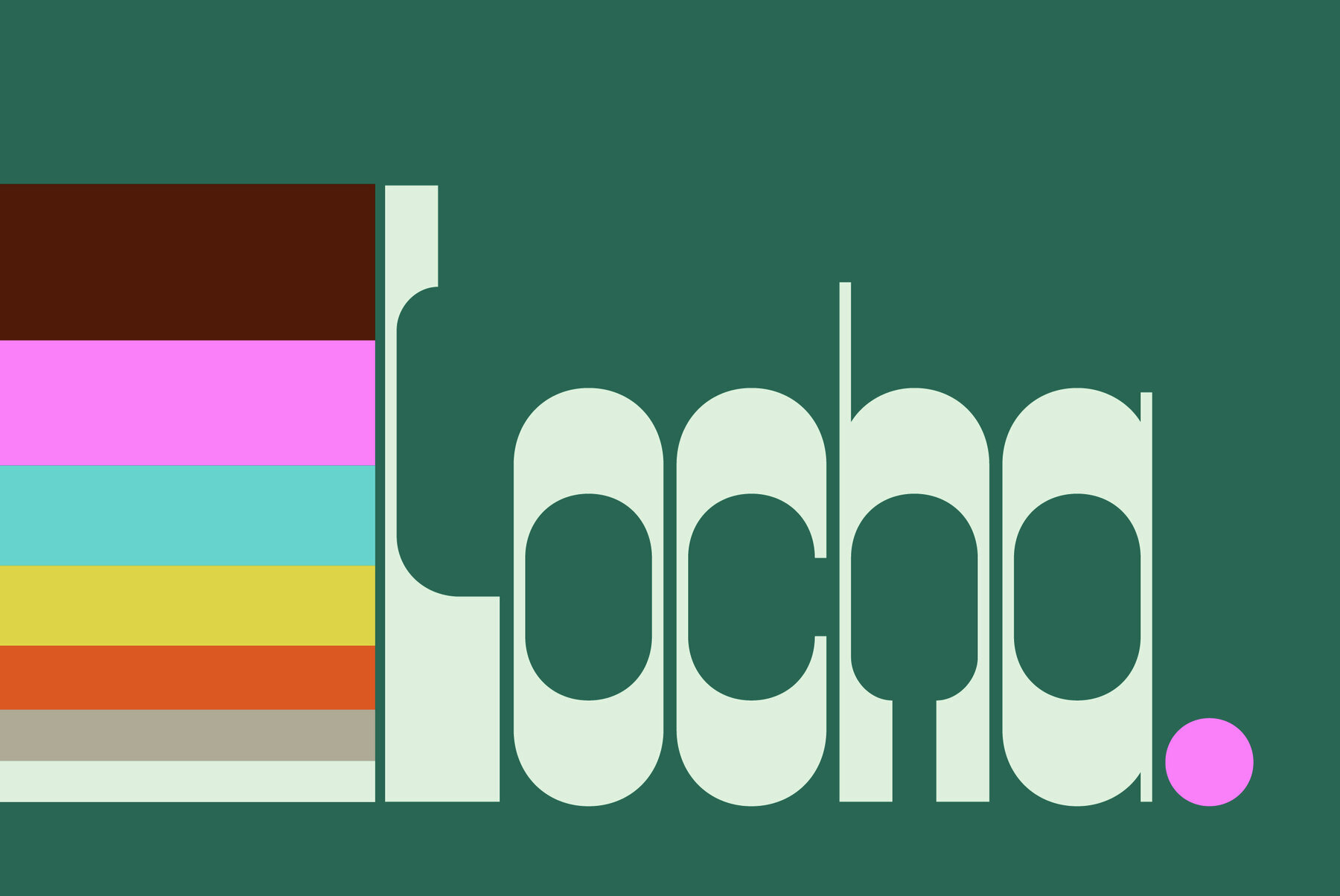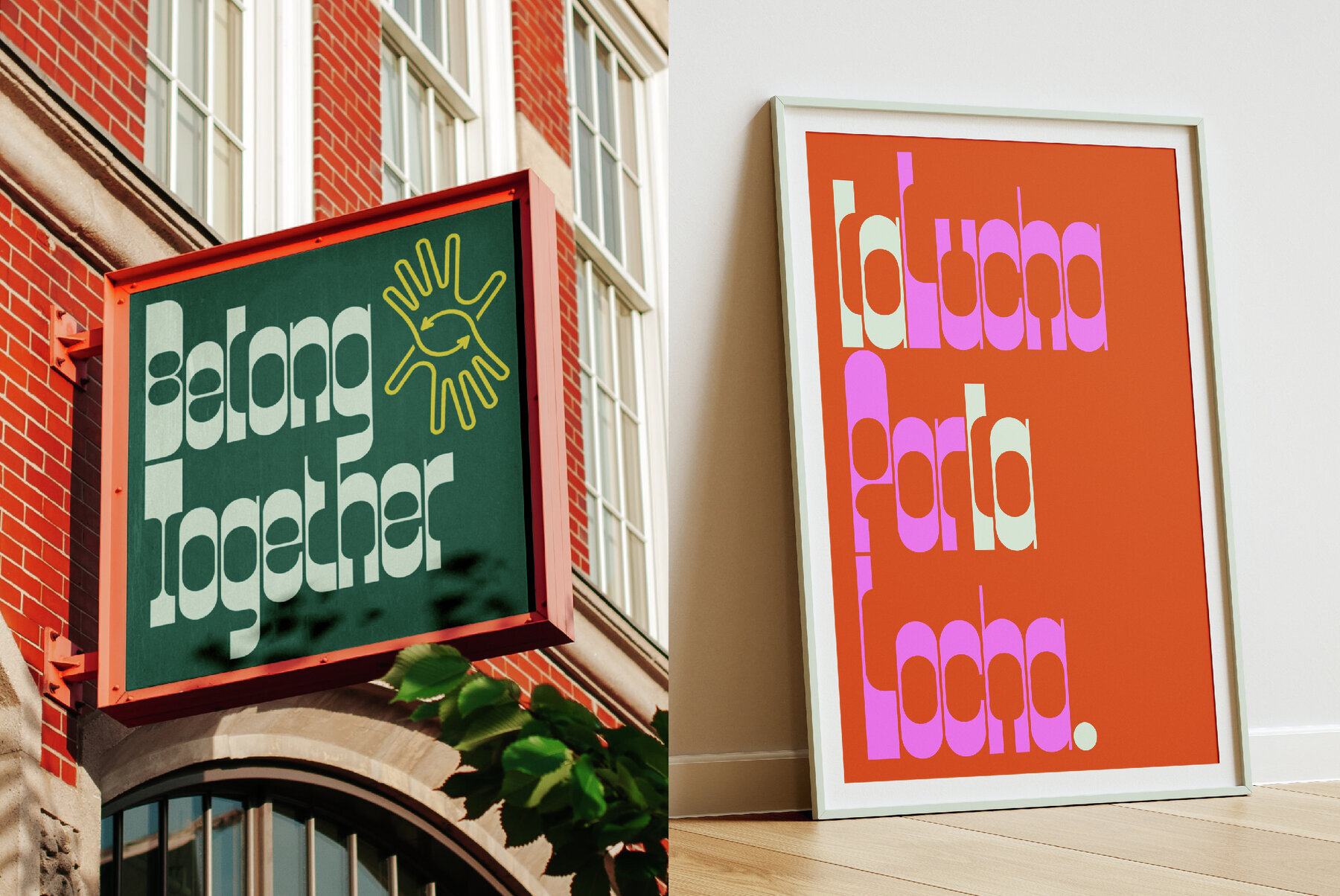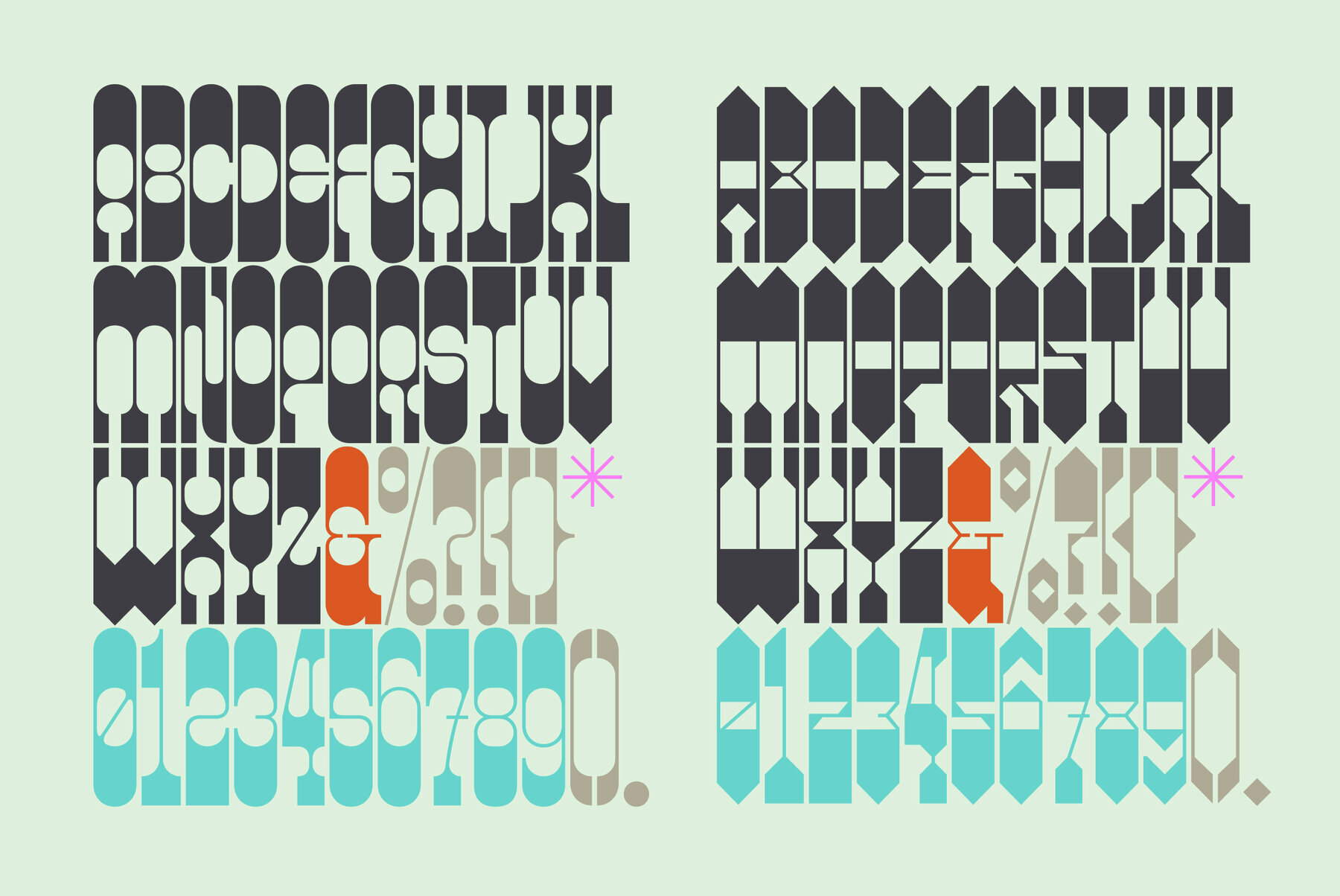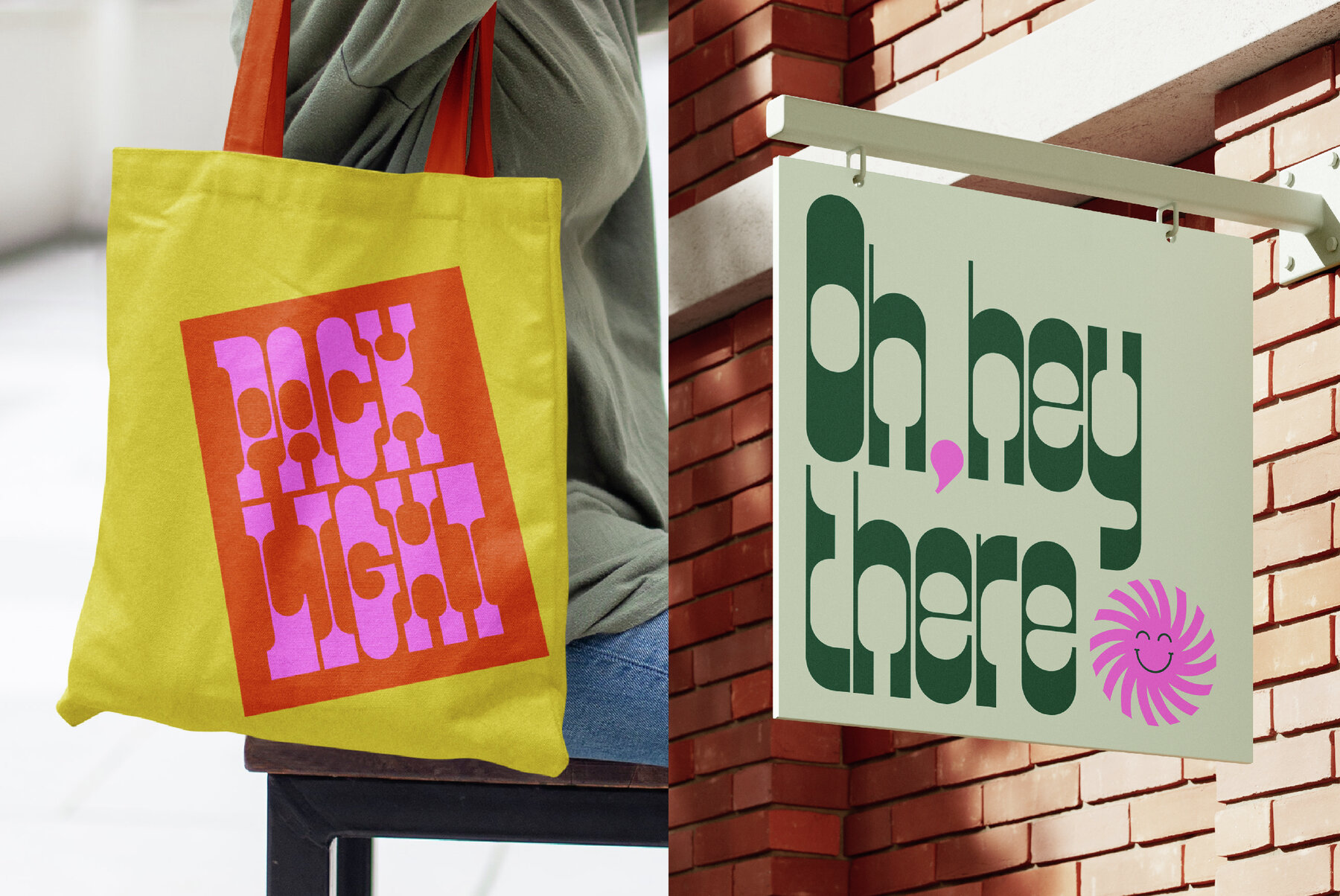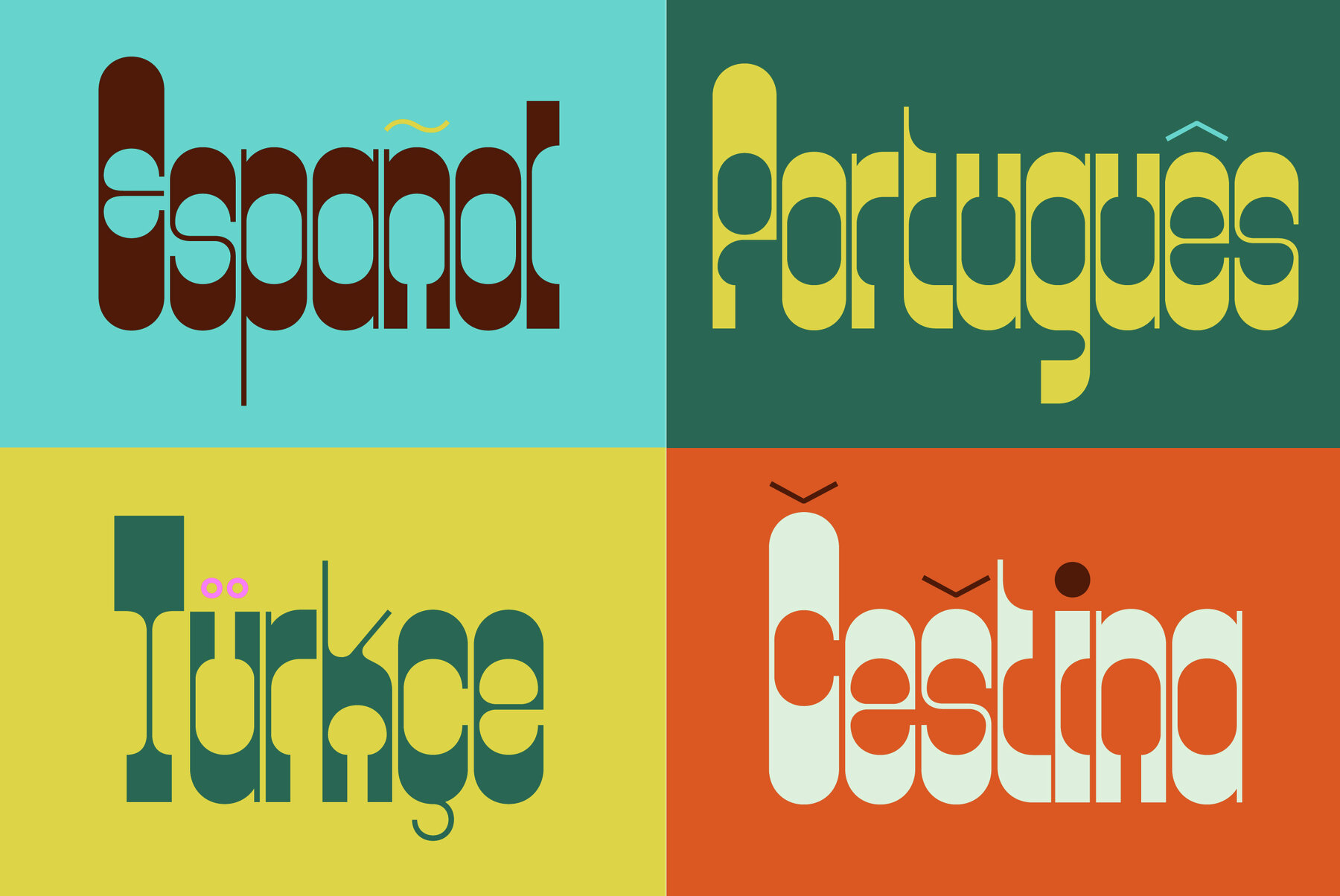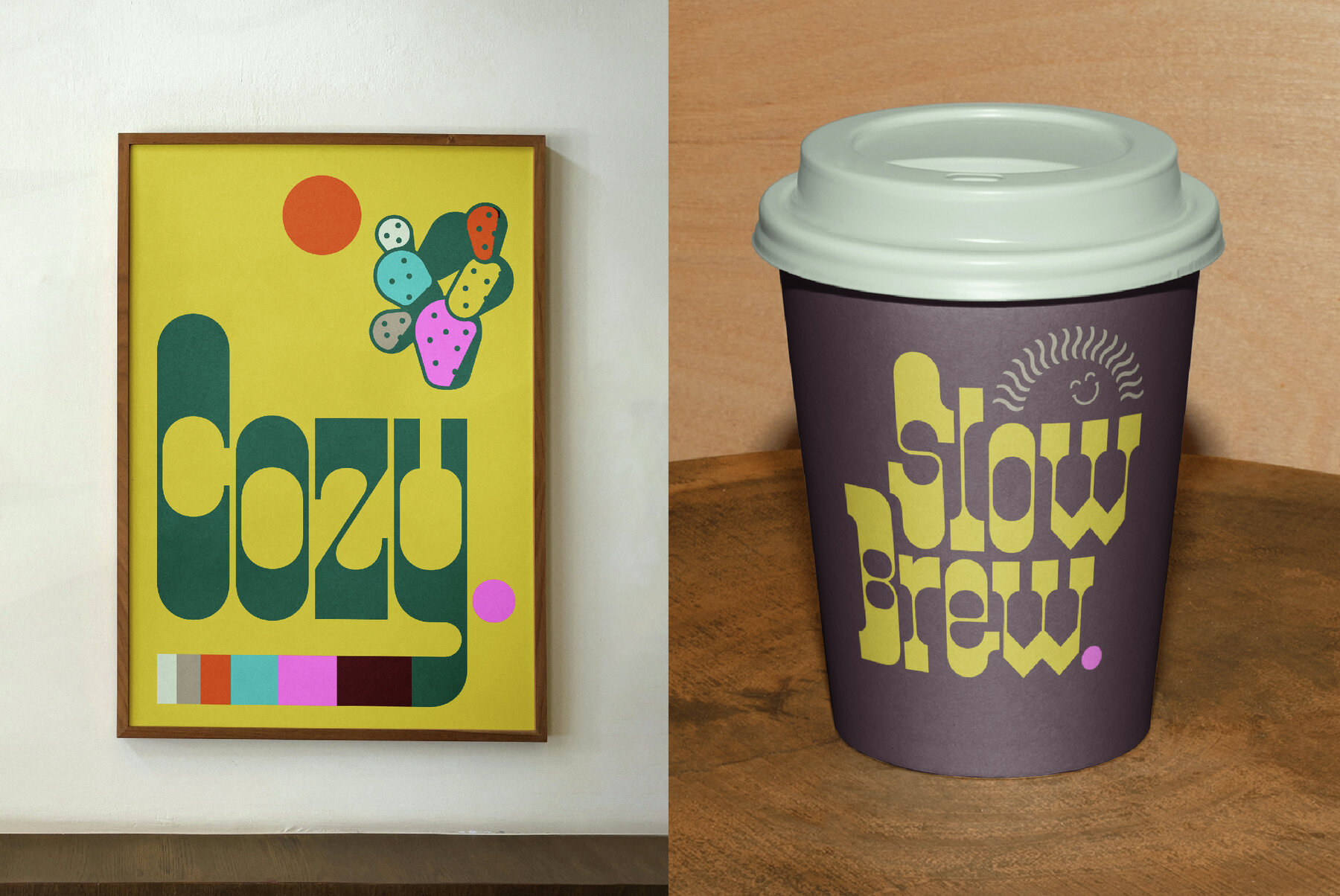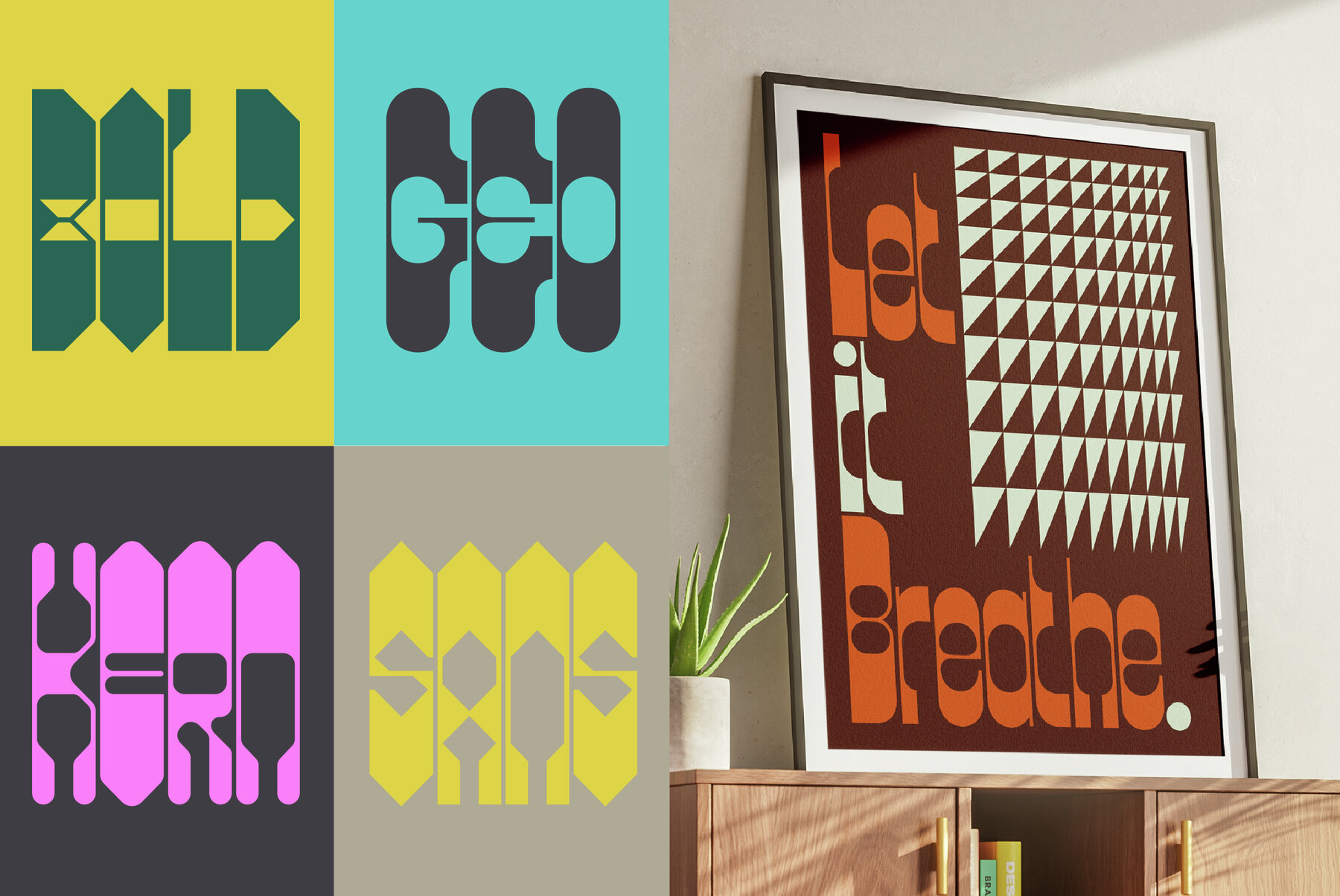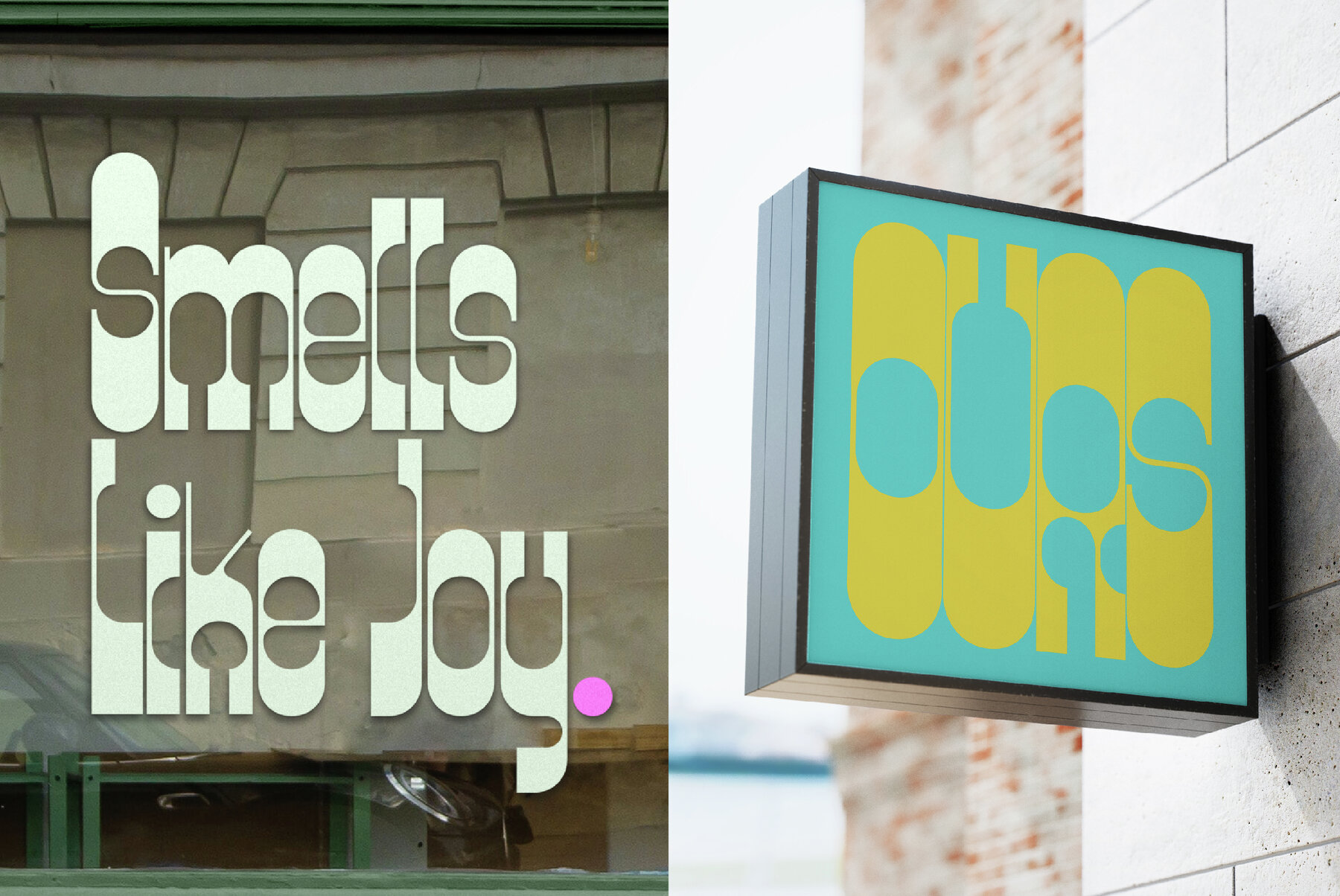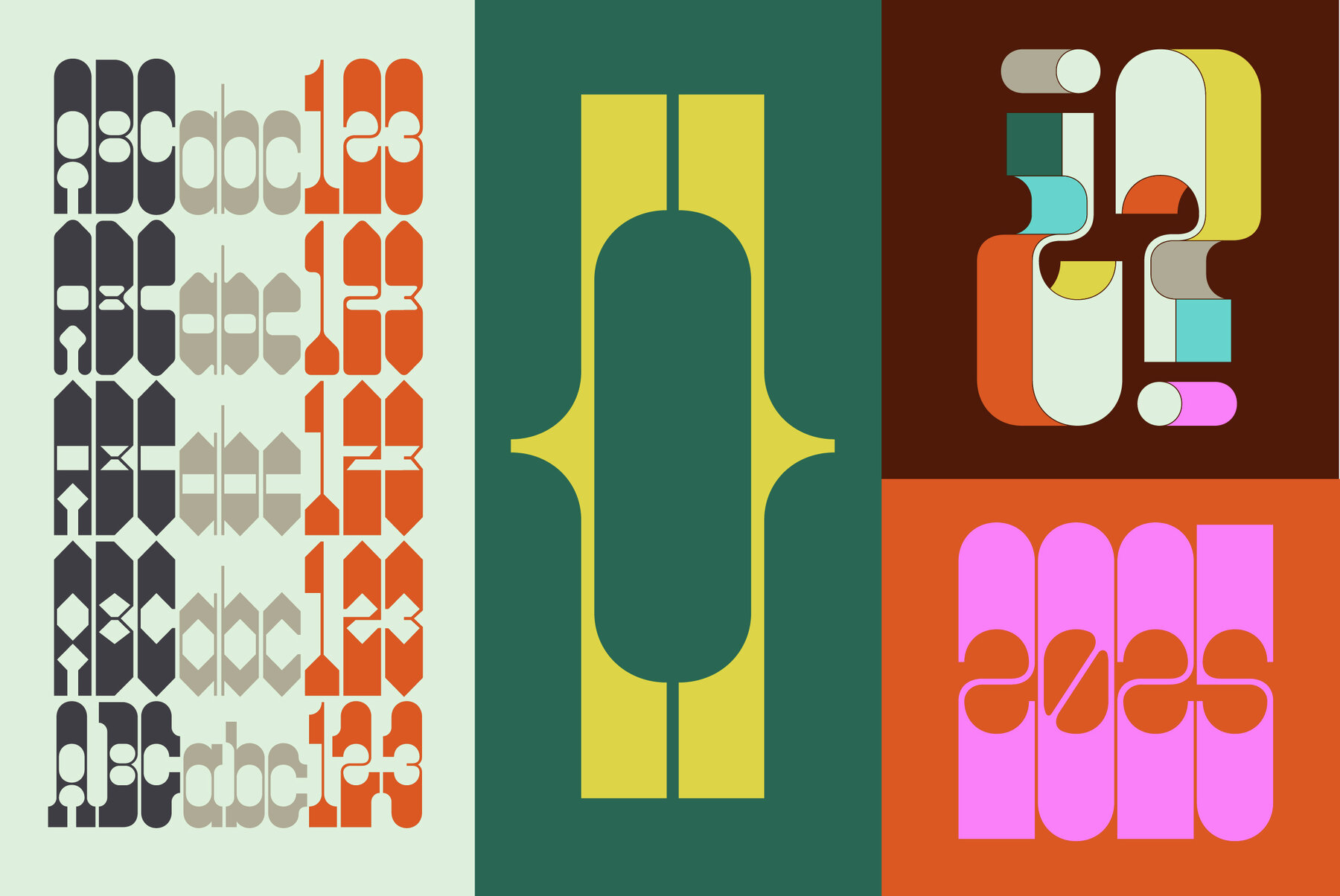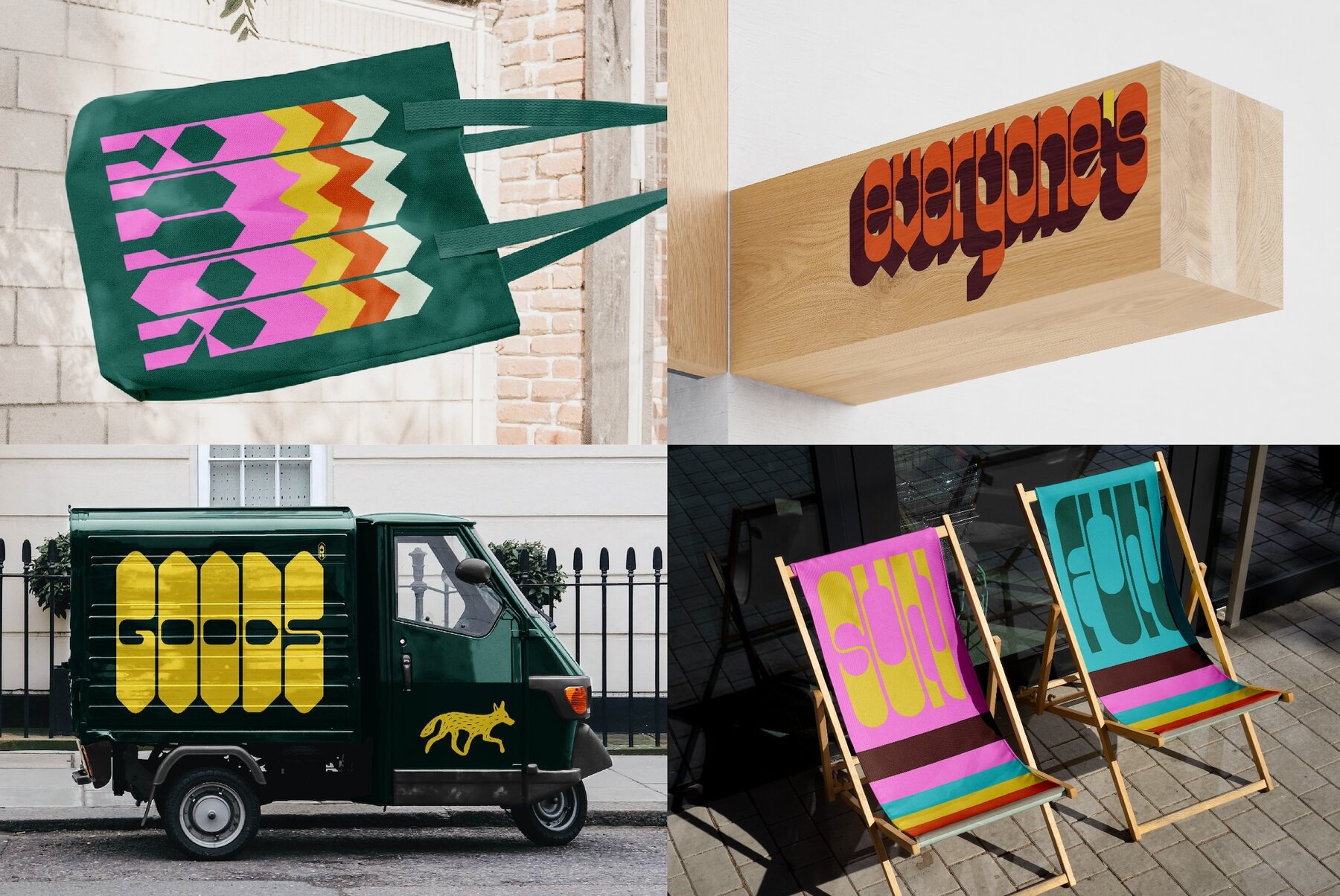
IH Locha Font
What if the letters we use every day didn't push us to go faster, be more efficient, consume more quickly? Locha is a typeface that invites us to be present, to slow down, notice details, and remember what connecting feels like. With its distinctly rounded counters, generous spacing, and softly geometric construction, Locha references the circular warmth of 1970s signage while infusing it with contemporary flexibility. Its rounded forms and flowing connections evoke hand-painted storefronts and weathered signage from an era when commerce meant community and design served place. Each character sits comfortably in its own space while creating satisfying visual rhythms in composition—design that served communities rather than algorithms. The typeface's five styles—Regular, Diagonal 1, Diagonal 2, Slab, and Soft—offer different interpretations of this essential character. When applied to contemporary designs, Locha brings unexpected warmth. Headlines set in its Diagonal variants create gentle rhythm and movement. Used in branding, the Regular and Slab styles convey trustworthiness without corporate sterility. And the Soft version? It's for when you need your words to feel like a friendly hand on the shoulder. Locha captures the feeling of a Sunday afternoon in a public plaza, of dappled sunlight through the trees, of being connected, unhurried, present and embodied. Its retro elements aren't mere nostalgia but a reclamation of presence, connection, and the simple pleasure of experiencing the world at human scale. Whether applied to branding, editorial design, or environmental graphics, Locha brings with it a reminder that another pace is possible. This is a typeface born from the recognition that something valuable has been lost in our rush toward optimization—the feeling of being present, unafraid, and connected to our surroundings and each other. Locha doesn't reject progress, but it remembers what's worth preserving. Locha includes complete character sets with extended Latin support across all variations. Designed by Alexander Wright with Michu Benaim Steiner at In-House International. Type development by Rodrigo Fuenzalida at FragType. In-House International is a studio founded by Lope Gutiérrez Ruiz, Michu Benaim Steiner and Alexander Wright that delivers branding breakthroughs for game-changers.